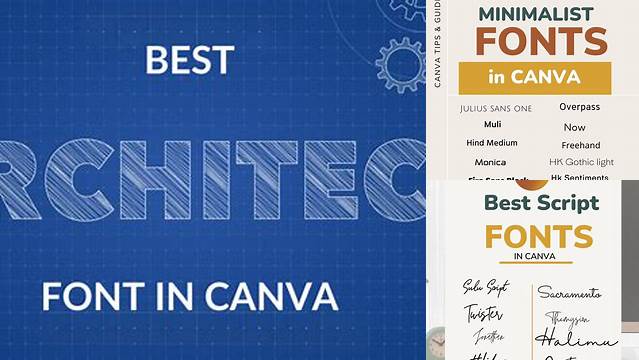
Best Architecture Fonts In Canva: Design Guide
Choosing the right font is crucial in architecture design, especially when presenting your work. The fonts you use can significantly impact how your designs are perceived, making them look professional, modern, or even classic. Canva is a fantastic tool for architects and designers, offering a wide array of fonts to suit various architectural styles. In this guide, we'll explore the best architecture fonts in Canva, providing you with the knowledge to make informed decisions and elevate your presentations. So, let's dive in and find the perfect font for your next project, guys!
1. Understanding the Importance of Font Choice in Architecture
The importance of font choice in architecture cannot be overstated. The fonts you select play a pivotal role in conveying the essence and style of your architectural designs. Imagine presenting a sleek, modern building design with a whimsical, curly font – it just wouldn't mesh, right? Good font choices not only enhance the visual appeal of your presentations but also communicate professionalism and attention to detail.
Think of fonts as the voice of your design. A strong, bold font can convey strength and stability, perfect for showcasing a robust structure. Conversely, a lighter, more elegant font might be ideal for a residential project emphasizing sophistication and grace. Using the right font ensures that your text complements your visuals, creating a cohesive and compelling narrative. When choosing fonts, consider the architectural style, the intended audience, and the overall message you want to convey. A well-chosen font can make your architectural drawings, presentations, and reports stand out, leaving a lasting impression on clients and colleagues alike. So, let’s make sure your voice is heard, loud and clear, with the perfect font!
2. Serif Fonts for Architectural Drawings
Serif fonts, characterized by the small strokes or “serifs” at the ends of the letters, are often considered classic and professional. When it comes to architectural drawings, these fonts can add a touch of elegance and readability. Think of fonts like Times New Roman or Garamond – they exude a sense of timeless sophistication. Serif fonts are particularly well-suited for detailed drawings and technical documents where clarity is paramount. The serifs help guide the eye across the text, making it easier to read large blocks of information.
For architectural professionals, using serif fonts in project proposals, detailed plans, and technical specifications can communicate a sense of authority and precision. Imagine a beautifully rendered architectural drawing accompanied by crisp, clear text in a serif font – it immediately conveys a sense of professionalism and attention to detail. However, it's essential to choose the right serif font. Some may appear too traditional for modern designs, while others might not be legible enough for smaller text sizes. So, experiment with different serif fonts in Canva to find the perfect balance between style and readability. Keep in mind that the best architecture fonts are those that enhance your design without overshadowing it. Let’s make those drawings pop with the right serifs, guys!
3. Sans-Serif Fonts for Modern Architecture Presentations
Sans-serif fonts, which lack the small strokes or “serifs” found in their serif counterparts, are the go-to choice for modern architecture presentations. These fonts, like Arial, Helvetica, and Open Sans, are known for their clean, minimalist appearance, which perfectly complements contemporary architectural styles. Sans-serif fonts convey a sense of modernity, simplicity, and clarity, making them ideal for presentations that need to be easily digestible and visually appealing.
In the world of architecture, presentations often need to communicate complex ideas quickly and effectively. Sans-serif fonts excel in this area due to their straightforward design, which ensures excellent readability even at smaller sizes. This is particularly important when presenting floor plans, elevations, and renderings where text labels and annotations are crucial. Imagine a sleek, glass-and-steel skyscraper rendered beautifully, accompanied by sans-serif labels that highlight key architectural features. The clean lines of the font mirror the clean lines of the building, creating a harmonious visual experience. When selecting a sans-serif font in Canva, consider the overall tone of your presentation. A bold sans-serif might be suitable for highlighting key features, while a lighter one could be used for body text. Ultimately, choosing the right sans-serif font can elevate your modern architecture presentations, making them both informative and visually stunning. Let’s make those modern designs shine with the perfect sans-serif font!
4. Display Fonts for Architectural Branding
Display fonts are the showstoppers of the font world, designed to grab attention and make a statement. When it comes to architectural branding, these fonts can play a crucial role in creating a memorable and impactful identity. Think of display fonts as the visual voice of your architecture firm or project – they set the tone and convey the personality behind your work. These fonts often feature unique, eye-catching designs, ranging from bold and geometric to elegant and script-like.
In architectural branding, consistency is key. Using a distinctive display font in your logo, website, and marketing materials helps to create a cohesive brand image that clients and collaborators will remember. Imagine a striking architectural firm logo rendered in a bold, geometric display font – it immediately conveys a sense of innovation and strength. Conversely, an elegant, script-like display font might be more suitable for a firm specializing in high-end residential designs, communicating sophistication and attention to detail. When choosing a display font in Canva, consider the overall aesthetic of your brand and the message you want to convey. While display fonts are excellent for headlines and branding elements, they are typically not suitable for body text due to their decorative nature. Therefore, it’s essential to pair your display font with a more readable serif or sans-serif font for the main text. By mastering the art of display font selection, you can create a brand identity that truly reflects the unique character of your architectural work. So, let's make a lasting impression with the perfect display font!
5. Canva Font Pairing Tips for Architects
Font pairing is an art, and mastering it can significantly enhance the visual appeal of your architectural presentations and branding materials. In Canva, you have access to a vast library of fonts, but combining them effectively requires a thoughtful approach. The goal is to create a harmonious balance between fonts that complement each other, enhancing readability and visual interest without clashing. A well-executed font pairing can make your designs look polished, professional, and aesthetically pleasing.
When selecting fonts for your architectural resume, readability and professionalism are paramount. You want to choose a font that is easy on the eyes, even for recruiters who are scanning dozens of resumes. Clean and legible sans-serif fonts like Open Sans, Lato, and Roboto are excellent choices. Imagine a recruiter effortlessly reading your resume, highlighting your skills and experience thanks to a well-chosen font. These fonts are modern, versatile, and ensure that your resume looks polished and professional. If you prefer a serif font, options like Merriweather and Lora can add a touch of elegance while still maintaining excellent readability. Consider a resume with Merriweather, projecting a sophisticated and professional image. For headings and subheadings, you can use a slightly bolder font or a different font from the same family to create visual hierarchy and make your resume easy to navigate. The goal is to choose fonts that enhance your qualifications without distracting from them. When selecting Canva fonts for resumes, focus on clarity, legibility, and professionalism. So, let’s make your resume a masterpiece that opens doors to new opportunities!